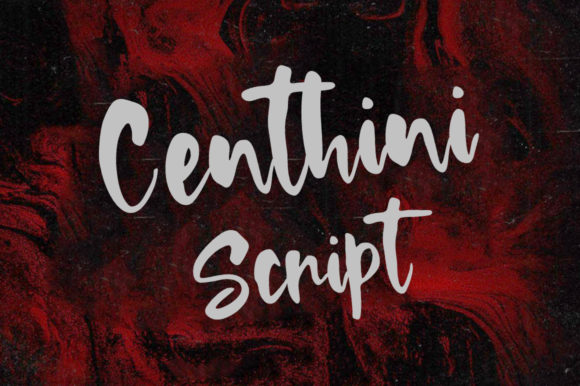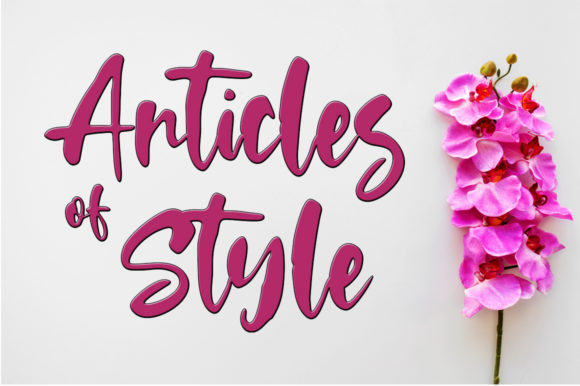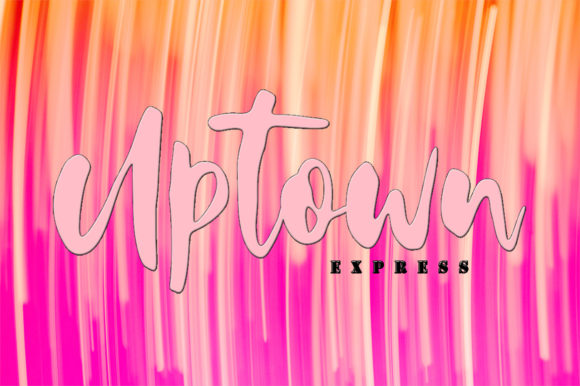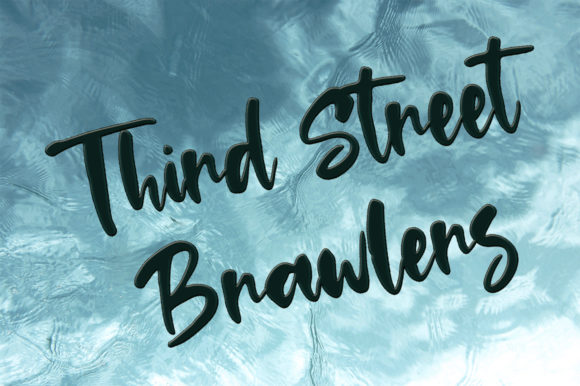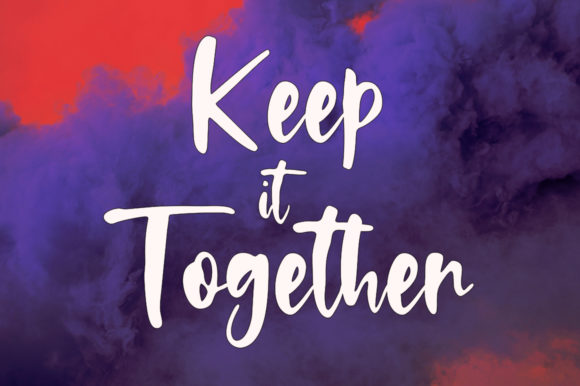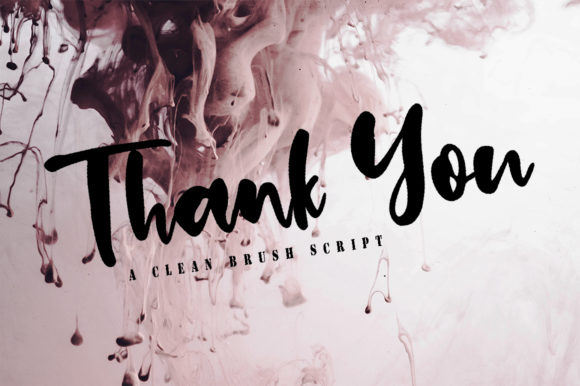
Discovering the Perfect Combination
For those designers seeking to add a touch of elegance to their work, look no further than Beauty in Red Font, a unique font duo born from the perfect marriage of two charming pen marker scripts. By combining these two distinct styles, you’ll unlock a world of creative possibilities, allowing you to craft stunning results that truly stand out.
With Beauty in Red Font, you’ll have the power to add a touch of sophistication and whimsy to your designs, making it an invaluable tool in your design arsenal. Whether you’re a seasoned pro or just starting out, this font duo is sure to inspire and delight.
Key Features of “Beauty in Red Font”
- Unique Characteristics: Unique, hand-drawn design with intricate details and subtle color variations, creating a distinctive visual effect
Beauty in Red Font Review
First off, I love the bold, eye-catching personality of Beauty in Red Font. It’s perfect for making a statement in any design project ✨. The font is highly customizable, allowing designers to tweak the color to their liking, which is a great feature. I also appreciate the variety of weights and styles available, giving designers ample options for different design applications.
- The font’s boldness is a standout feature, making it perfect for headings and titles.
- The customizable color options allow designers to match the font to their brand or design scheme.
- The font’s versatility makes it suitable for a wide range of design projects, from logos to advertising materials.
However, there are some limitations to consider ⚠️. The font’s boldness can sometimes make it difficult to read, especially in smaller sizes or in low-contrast designs. Additionally, the font’s weight and style options can sometimes feel overwhelming, making it challenging to choose the right combination for a particular project.
Overall, I think Beauty in Red Font is a great addition to any designer’s toolkit. While it has its limitations, the font’s bold personality and high level of customization make it a valuable resource for designers looking to make a statement in their designs.
Beauty in Red Font: A Practical Application Guide
For optimal results, use the Beauty in Red font for headings and titles to create a striking visual effect. It’s also suitable for use in logos, branding materials, and social media graphics.
- Event and party graphics
Carolyna Pro is a modern, elegant script font that’s perfect for designs that require a touch of sophistication and luxury. It’s suitable for use in branding materials, invitations, and other high-end designs. Compared to Beauty in Red Font, Carolyna Pro has a more modern and sleek appearance, making it ideal for designs that require a contemporary touch.
The Beauty in Red Font is designed to be scalable, and there is no specific font size limit. However, for optimal display, we recommend using font sizes between 12px and 72px. Using font sizes outside of this range may affect the font’s readability and overall aesthetic. Additionally, the font’s kerning and spacing are optimized for font sizes between 12px and 48px.